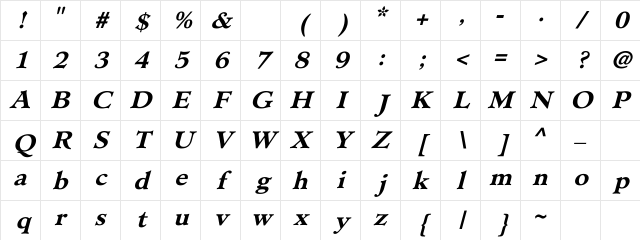
Minister BoldItal
Style: BoldItal
Minister Family
Minister BoldItal
Complete Minister BoldItal glyph index. Displaying only characters natively supported by Minister BoldItal font.
Design Context for Minister
Minister is a composed and adaptable typeface that performs quietly and consistently across a wide range of design contexts. Its bold stroke weight gives it real presence on the page.